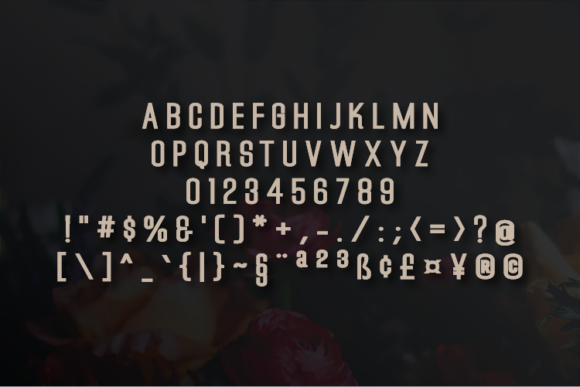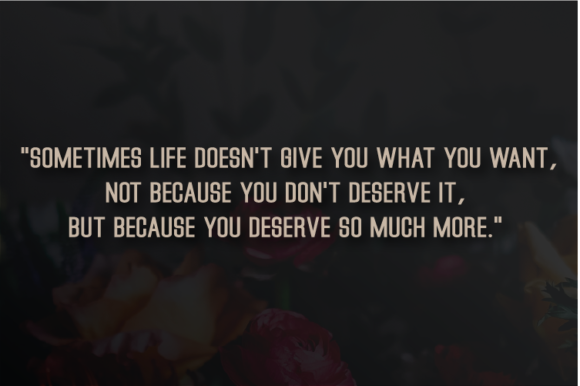
Introduction to Phroys Font Font
Fonts play a crucial role in design, and the Phroys Font font is a typeface that brings both character and versatility to any project. Whether you’re working on a branding project, a website, or a print design, the Phroys Font font offers a unique style that can elevate your work.
Phroys is a bold and chunky charactered sans serif font.
It can easily be matched to a wide variety of designs, due to its simple style Fall in love with Phroys and bring your projects to the highest levels.
Key Features of Phroys Font Font
Why Choose Phroys Font Font?
The Phroys Font font is more than just a typeface – it’s a design tool that helps you communicate your message with style and clarity. Its unique character set and versatile design make it suitable for a wide range of applications, from elegant invitations to bold headlines.
With its carefully crafted letterforms and balanced proportions, the Phroys Font font ensures readability and visual appeal across all mediums.
What makes Phroys Font font special?
The Phroys Font font stands out with its unique design, exceptional readability, and versatility across various design applications.